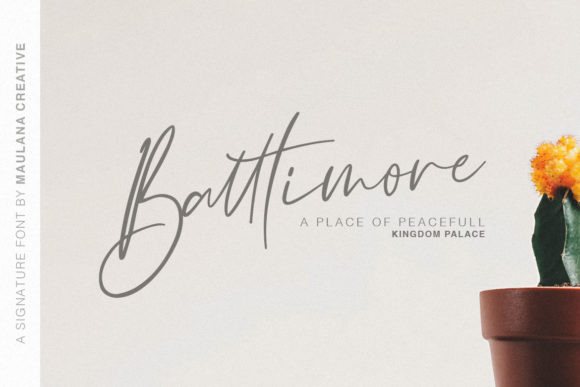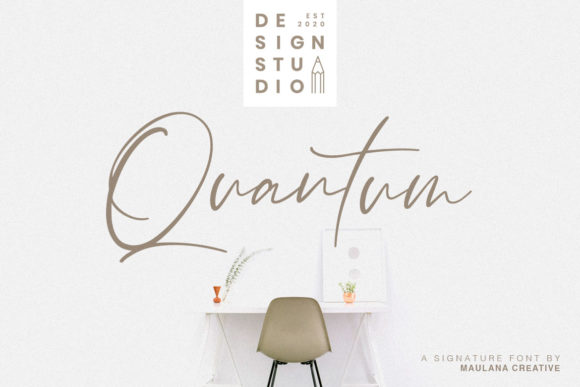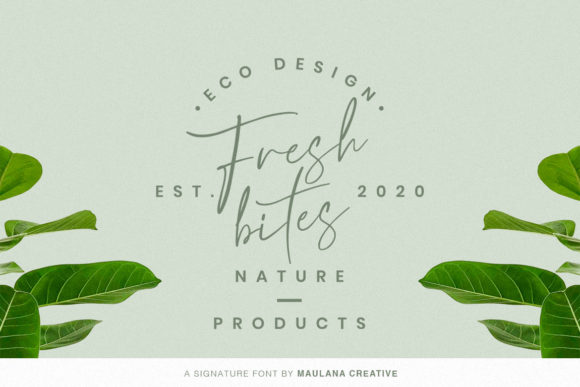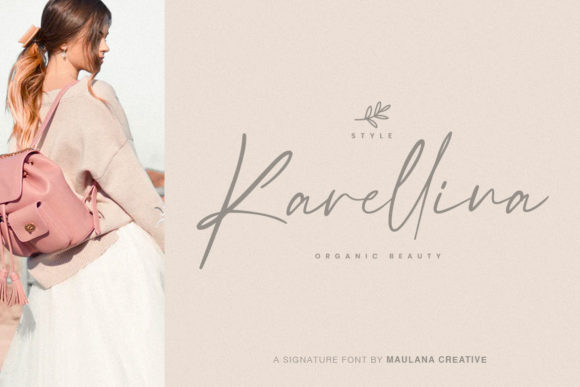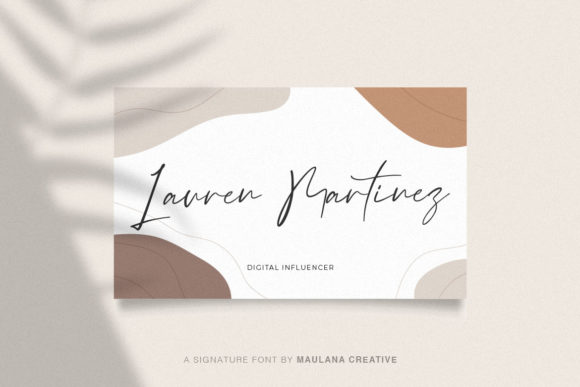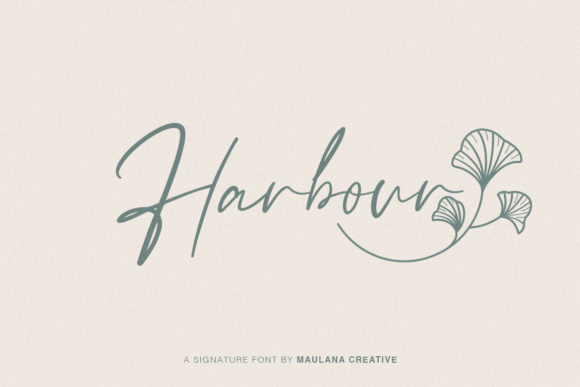
Galgadot Font: The Perfect Script for DIY Projects
Galgadot is a fancy script with charming letters that’s taking the design world by storm. This beautiful typeface is the ideal choice for giving your DIY projects a personal and authentic feel. Whether you’re a designer, crafter, or simply a DIY enthusiast, Galgadot Font is a must-have in your font collection.
The Charm of Galgadot Font
Galgadot Font is a unique and elegant script that’s perfect for adding a touch of personality to your projects. Its charming letters are designed to evoke a sense of nostalgia and warmth, making it ideal for creating handmade or vintage-inspired designs. The font’s flowing curves and intricate details give it a distinctive look that’s sure to stand out.
Perfect for DIY Projects
So, what makes Galgadot Font so perfect for DIY projects? For starters, its personal and authentic feel makes it ideal for creating handmade or crafty designs. Whether you’re making signs, cards, or other paper crafts, Galgadot Font adds a touch of warmth and personality that’s hard to replicate with other fonts.
Additionally, Galgadot Font is incredibly versatile. It can be used for a wide range of DIY projects, from rustic wedding signs to personalized gifts. The font’s elegant and sophisticated look also makes it perfect for more refined projects, such as handmade journals or artisanal packaging.
Why Designers and Crafters Love Galgadot Font
Designers and crafters alike love Galgadot Font for its unique and charming aesthetic. Here are just a few reasons why:
- Unique and distinctive look: Galgadot Font has a one-of-a-kind look that’s sure to stand out in any design.
- Personal and authentic feel: The font’s charming letters and flowing curves give it a warm and inviting feel that’s perfect for DIY projects.
- Versatile: Galgadot Font can be used for a wide range of projects, from rustic signs to elegant packaging.
- Elegant and sophisticated: The font’s intricate details and flowing curves make it perfect for refined projects that require a touch of elegance.
Tips for Using Galgadot Font
Here are a few tips for getting the most out of Galgadot Font:
- Use it for headings and titles: Galgadot Font is perfect for adding a touch of personality to headings and titles.
- Experiment with different colors and textures: The font’s elegant look pairs well with a wide range of colors and textures, so don’t be afraid to get creative.
- Pair it with other fonts: Galgadot Font pairs well with a wide range of other fonts, so feel free to experiment with different combinations.
- Use it for digital and print projects: Galgadot Font is versatile enough to be used for both digital and print projects, from social media graphics to handmade signs.
Galgadot Font is a beautiful and charming script that’s perfect for DIY projects. Its unique and distinctive look, personal and authentic feel, and versatility make it a must-have for designers and crafters alike. Whether you’re creating handmade signs, personalized gifts, or elegant packaging, Galgadot Font is the perfect choice. So why not give it a try and see the difference it can make in your designs?